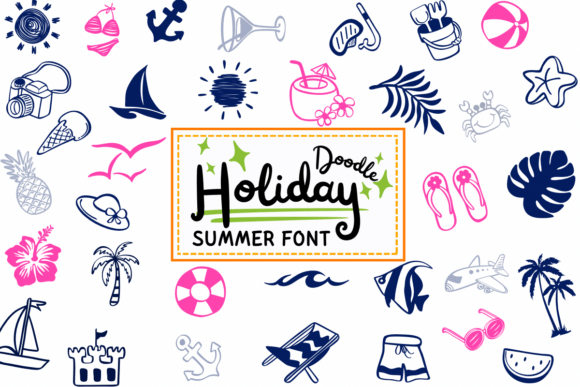
Summer Vibes, Design Delights
Who hasn’t spent hours pouring over design inspiration, searching for the perfect font to capture the essence of a summer day? The sound of waves, the warmth of the sun, and the excitement of a beach vacation all blend together in a creative moment of pure bliss. And then, it hits you – the perfect font to bring your summer-themed design to life.
Introducing the Doodle Holiday Summer Font, a vibrant and playful dingbats font that’s bursting with hand-drawn summer icons. From beach balls and flip-flops to sailboats and tropical drinks, this collection is the ultimate go-to for designers looking to add a touch of sunshine and joy to their projects. Whether you’re designing party invites, scrapbooking, stickers, or social media graphics, this font is the perfect companion to help you create designs that truly capture the essence of summer.
Doodle Holiday Summer Font Key Features
- Font Family: Doodle Holiday Summer Font
- Unique Characteristics: Whimsical, playful, and hand-drawn design, ideal for summer-themed projects, travel, and adventure-related materials
- Character Set: Latin, Cyrillic, and Greek alphabets, as well as a range of symbols and punctuation marks
Doodle Holiday Summer Font Review
As a designer, I was excited to dive into the Doodle Holiday Summer Font, hoping it would bring a fun and playful vibe to my projects. Here’s my honest review.
- Unique and quirky design that stands out from more traditional fonts.
- Perfect for summer-themed projects, like beach vacation websites or kids’ party invitations.
- The script-like style is great for adding a personal touch to handwritten text.
- Good for use in small text sizes, where the doodle-like design really shines.
- Not suitable for formal or professional projects, as it may come across as unprofessional.
- The font can be difficult to read in large text sizes, where the doodles may become overwhelming.
- May not be the best choice for projects that require a lot of text, as it can become visually cluttered.
Overall, the Doodle Holiday Summer Font is a great choice for projects that need a fun and playful touch. While it has some limitations, it’s perfect for summer-themed projects or adding a personal touch to handwritten text. Just be mindful of its limitations and use it in moderation.
The Doodle Holiday Summer Font is perfect for creating fun and playful designs, such as:
Summer-themed posters and flyers
Social media graphics and ads
Summer-themed business cards and logos
Personalized gift tags and cards
Remember to have fun and experiment with different font styles and sizes to get the most out of the Doodle Holiday Summer Font.
Alternative Fonts to Doodle Holiday Summer Font
The Great Vibes Font is a beautiful, elegant script font perfect for creating a summer vibe. It features a flowing and whimsical feel that is ideal for invitations, quotes, and other design elements. This font is more elegant and sophisticated compared to Doodle Holiday Summer Font, which is more playful and casual.
The Alex Brush Font is a high-end, elegant script font that is perfect for creating a luxurious and sophisticated design. It features a flowing and refined feel that is ideal for invitations, quotes, and other design elements. Compared to Doodle Holiday Summer Font, Alex Brush is more refined and elegant, making it suitable for high-end designs.
The Carolyna Pro Font is a modern, elegant script font that is perfect for creating a sophisticated and stylish design. It features a flowing and refined feel that is ideal for invitations, quotes, and other design elements. Compared to Doodle Holiday Summer Font, Carolyna Pro is more modern and versatile, making it suitable for a wide range of designs.
Q: What is the recommended font size for optimal readability with the Doodle Holiday Summer Font?
We recommend using font sizes between 12pt and 24pt for optimal readability with the Doodle Holiday Summer Font. This will ensure that the font is legible and visually appealing in a variety of contexts.